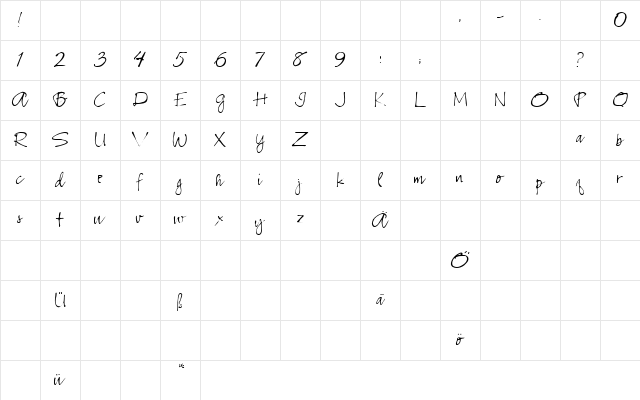
Riverside Normal Free Font
Riverside Normal
Design Context for Riverside
Riverside is a composed and adaptable typeface that performs quietly and consistently across a wide range of design contexts.